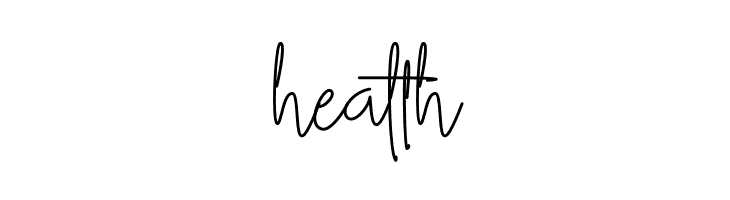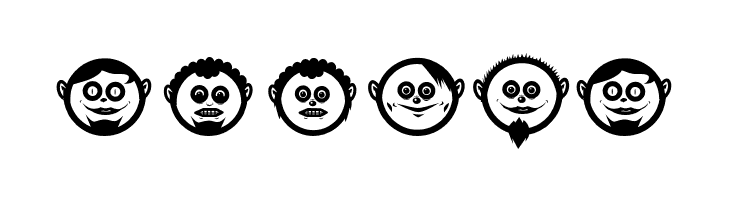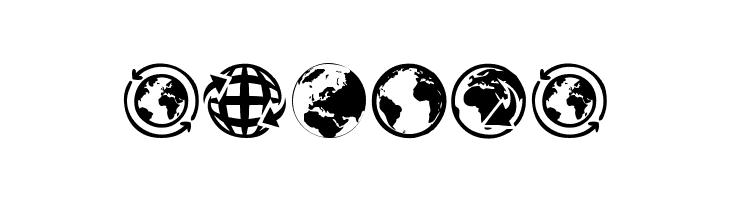
A playful, handwritten font with uneven strokes and a casual style.
A bold, modern font with strong vertical lines and slightly condensed letterforms.
An ornate and decorative font with intricate, snowflake-like patterns.
A playful, handwritten font with fluid strokes and a casual, friendly style.
A diverse set of globe and world map icons in various illustrative and geometric styles.
A playful collection of face icons with various expressions and styles.
An elegant script font with flowing, ornate letterforms and intricate swashes.